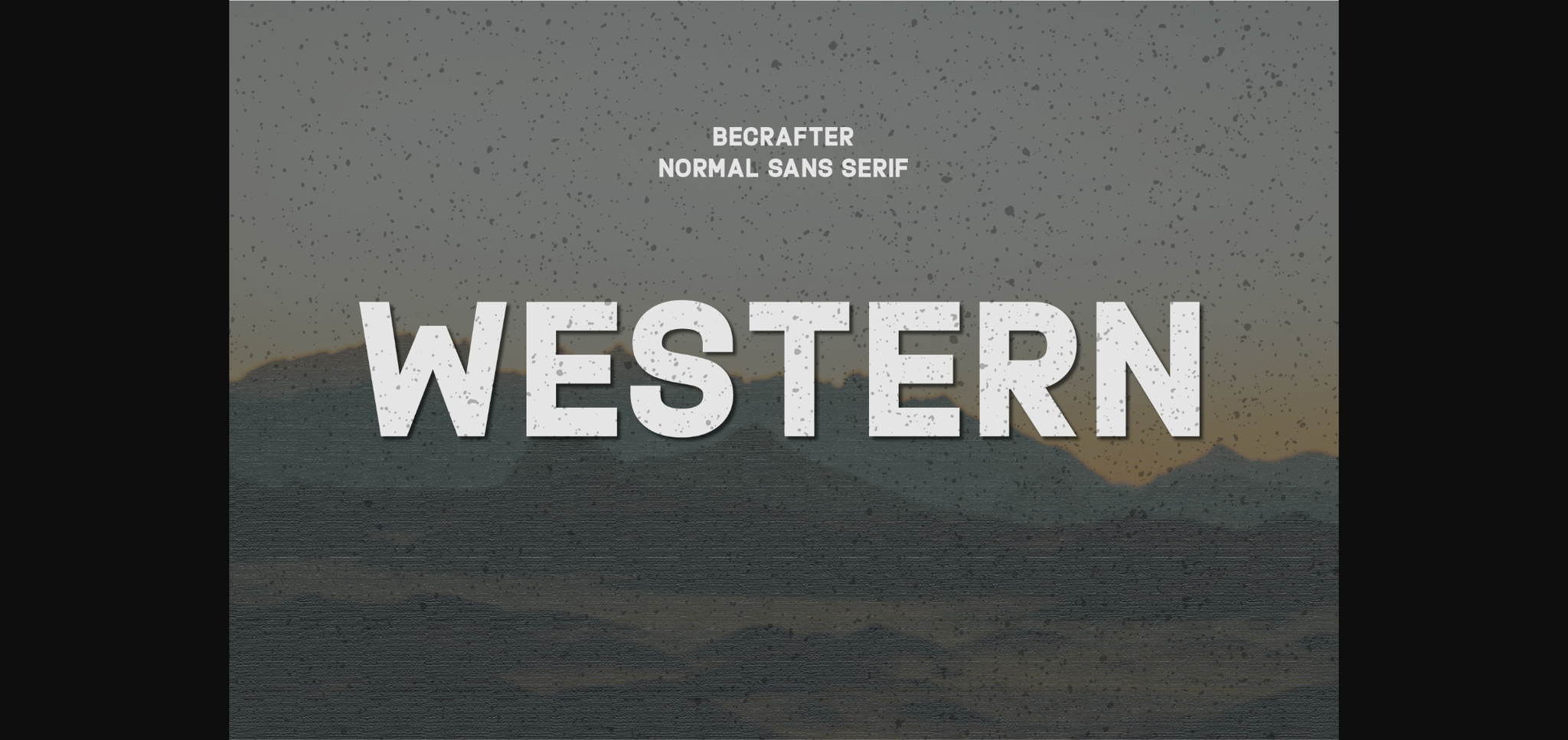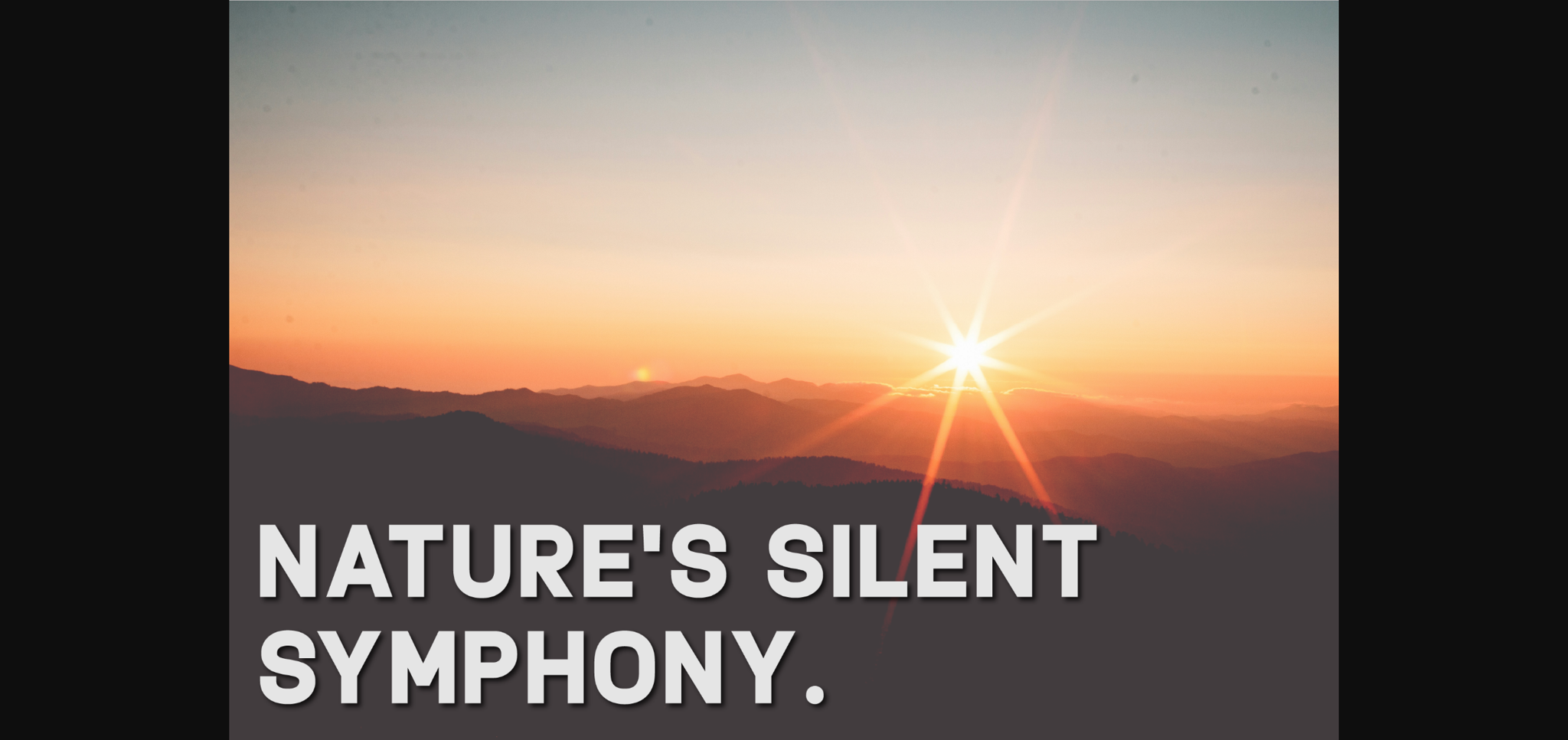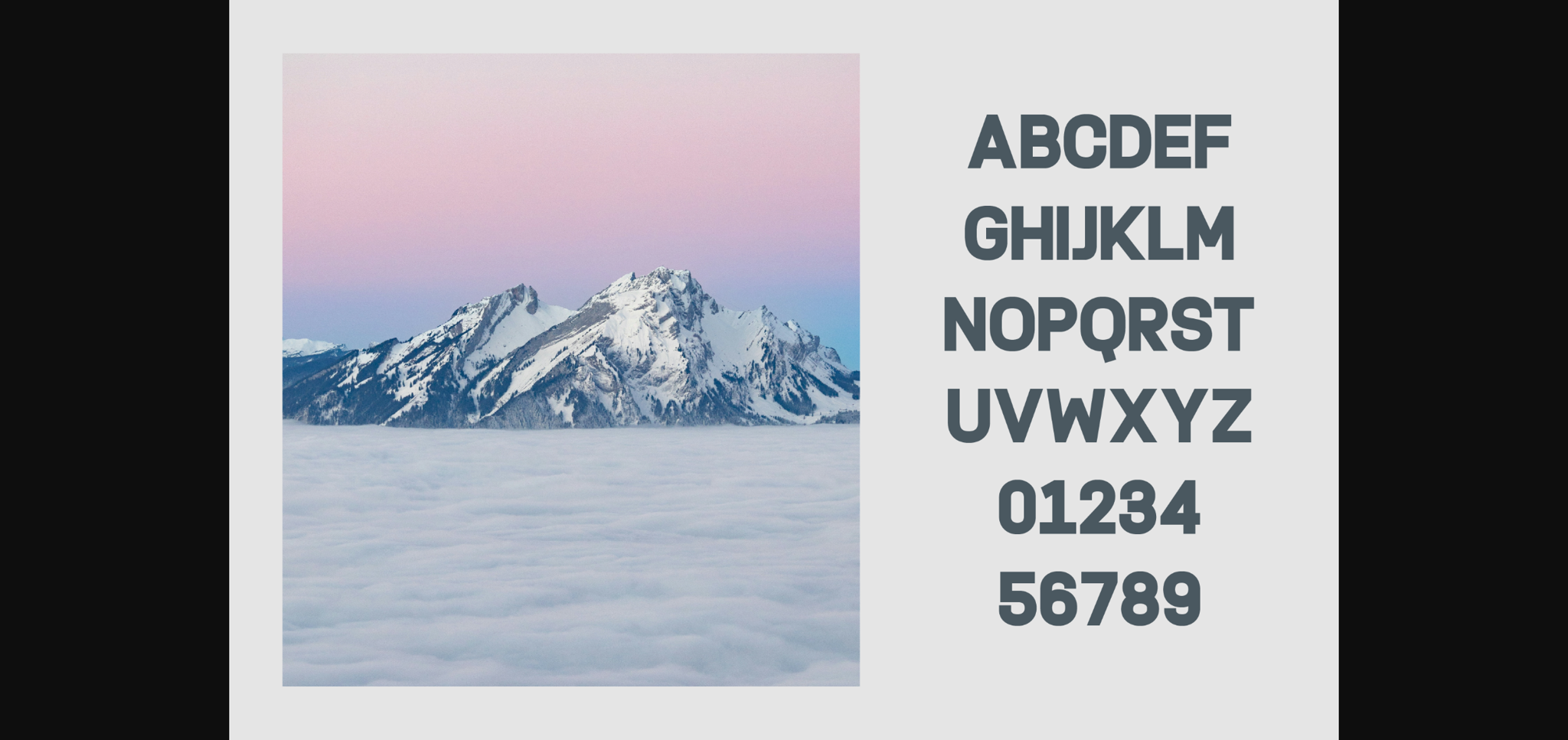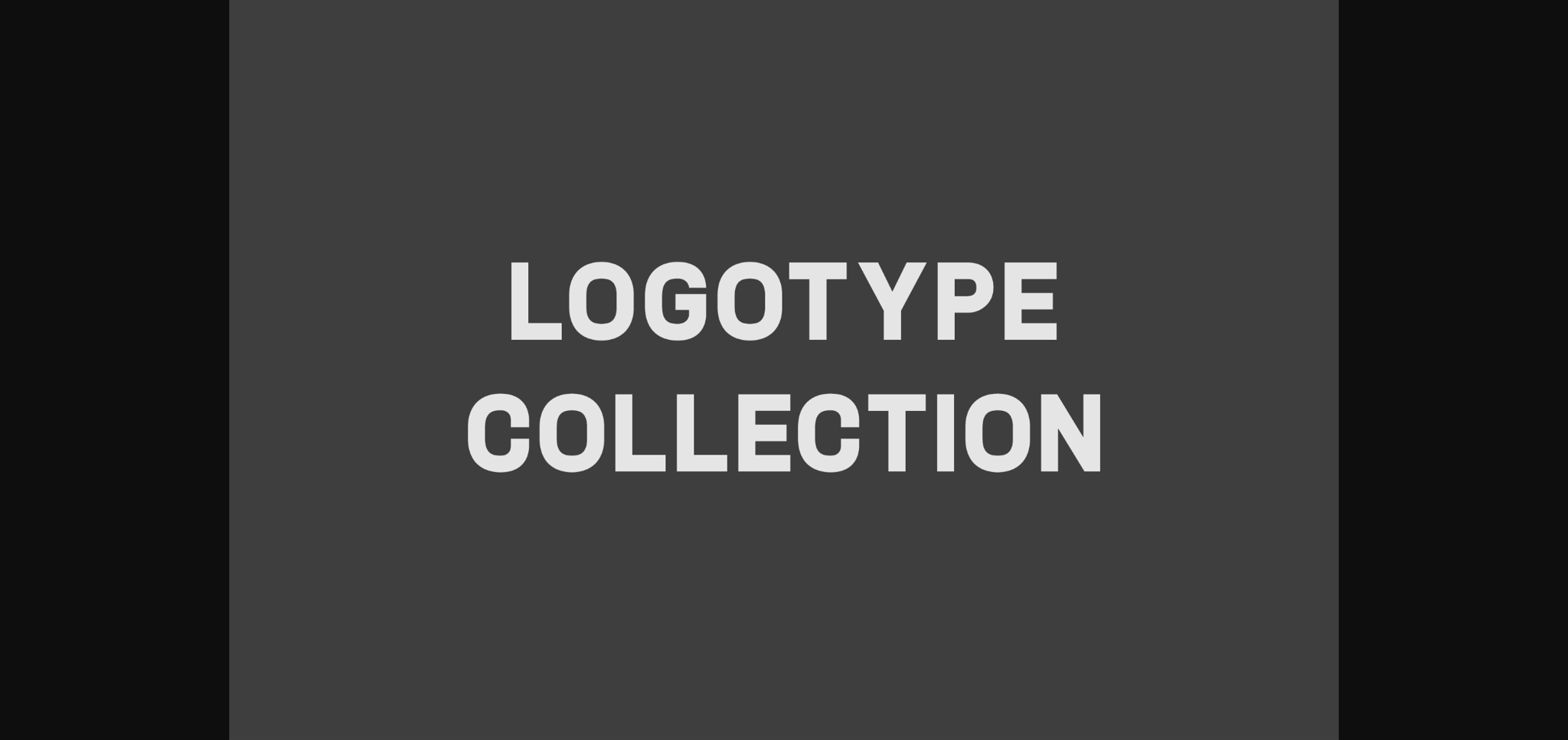
Western Font
About Western Font
Immerse yourself in the bold brilliance of the Western font. With its rugged, vintage appeal, this uppercase sans-serif typeface commands attention in any setting. More than just a collection of letters, Western offers a high degree of versatility, infusing personality and an old-world charm into every design. Be it striking logos, attention-demanding printed materials, or creative endeavors, this typeface stands as a compelling choice.